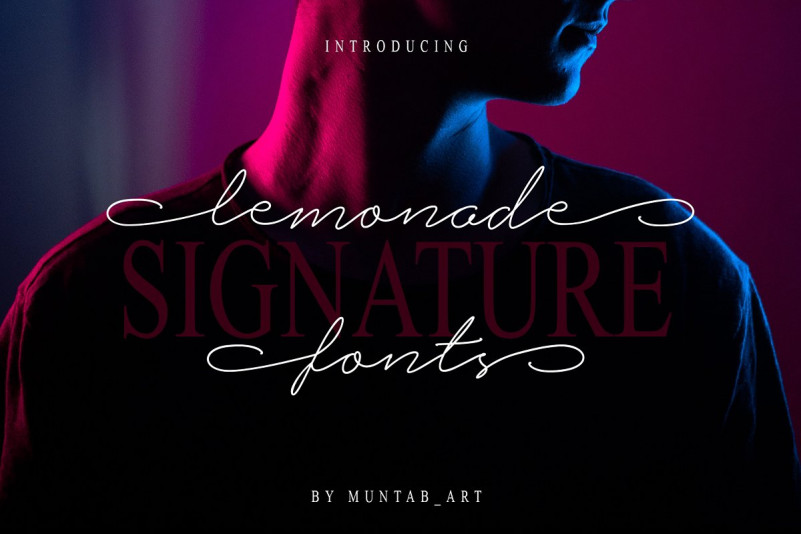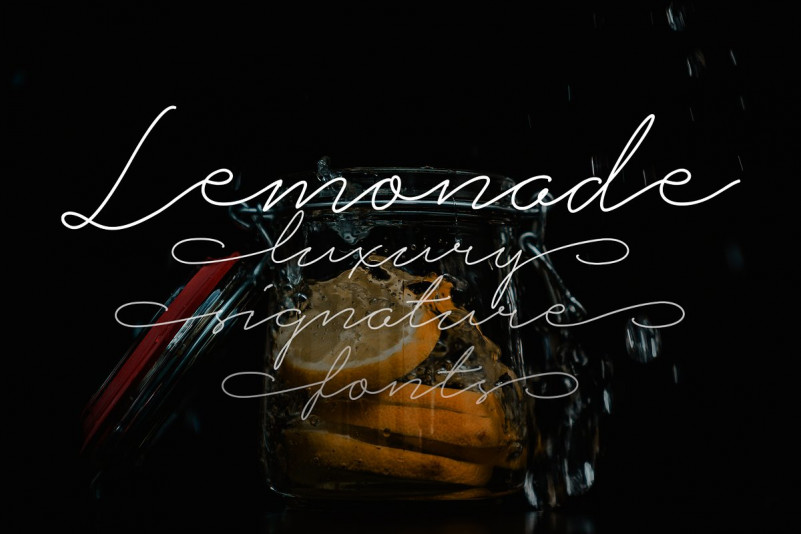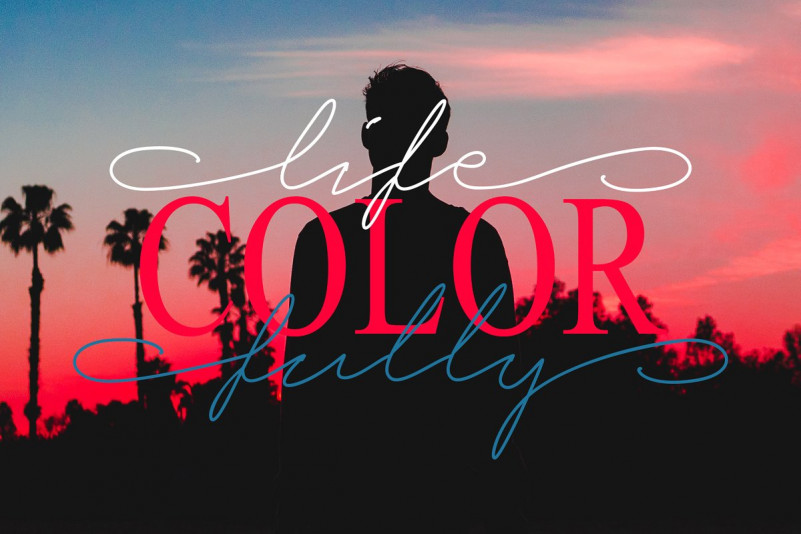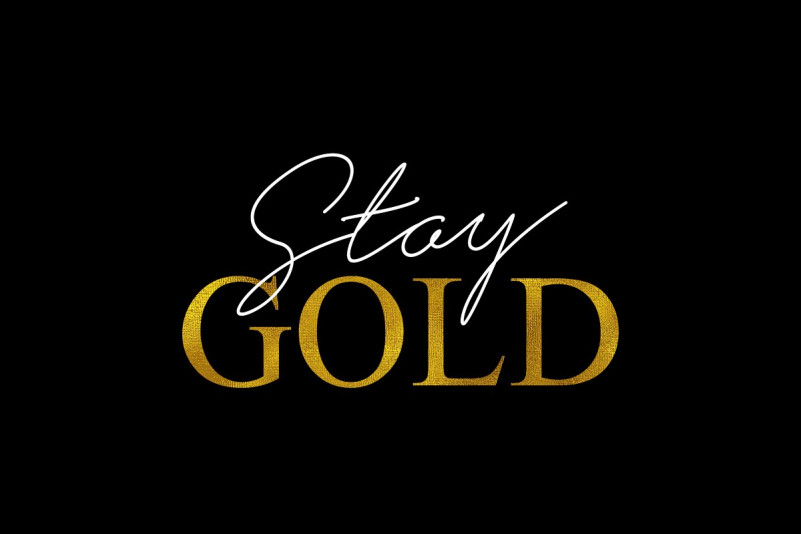
Lemonade Signature Font
Lemonade Script includes uppercase and lowercase letters, numerals, a large range of punctuation, multilingual language and ligatures. All lowercase letters include ending swashes and alternative font.